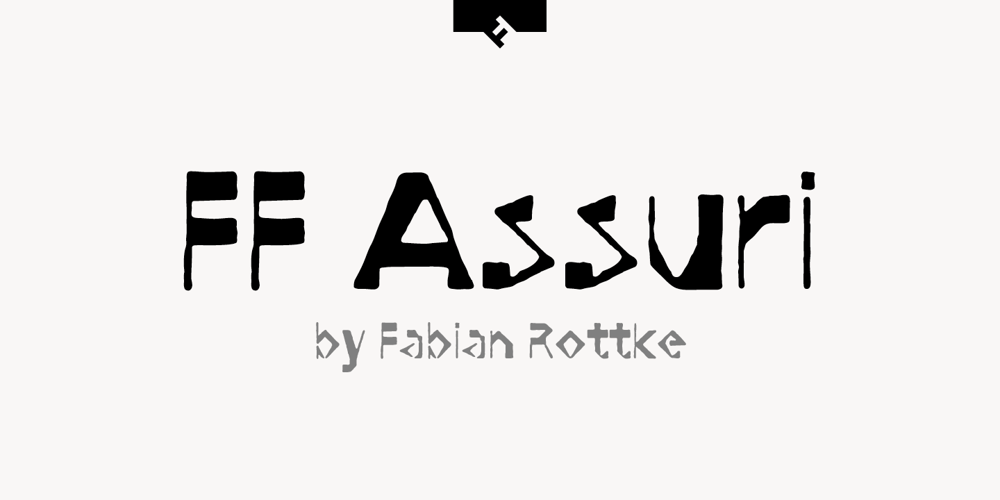
FF Assuri Font Family was designed by Fabian Rottke and published by FontFont. FF Assuri contains 1 styles and family package options. German type designer Fabian Rottke created this display FontFont in 1994. The font is ideally suited for poster and billboards. FF Assuri provides advanced typographical support with features such as ligatures. It comes with proportional lining figures.